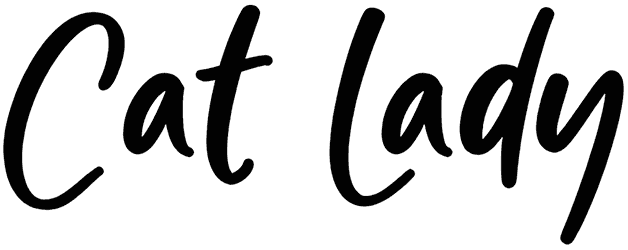
Cat Lady Font
Cat Lady is a lovely organic font that will provide a laid-back atmosphere to your digital artwork. This whimsical handwritten font is often used for writing, invitations, greeting cards, and even clothing, owing to the relaxed aesthetic it conveys.